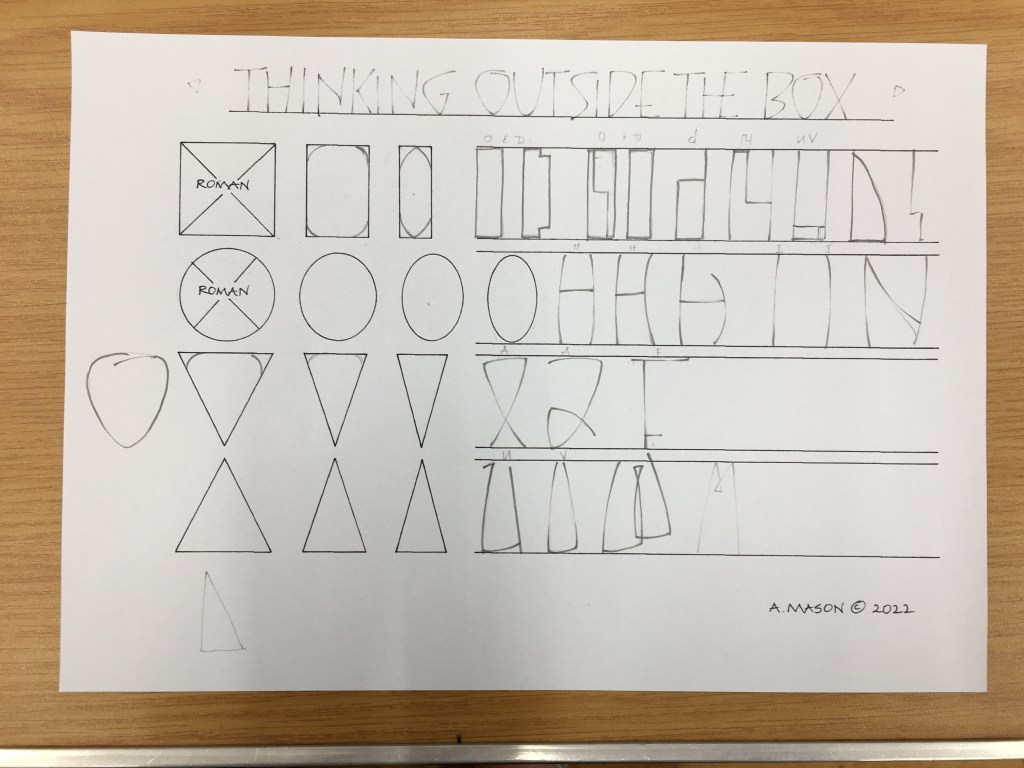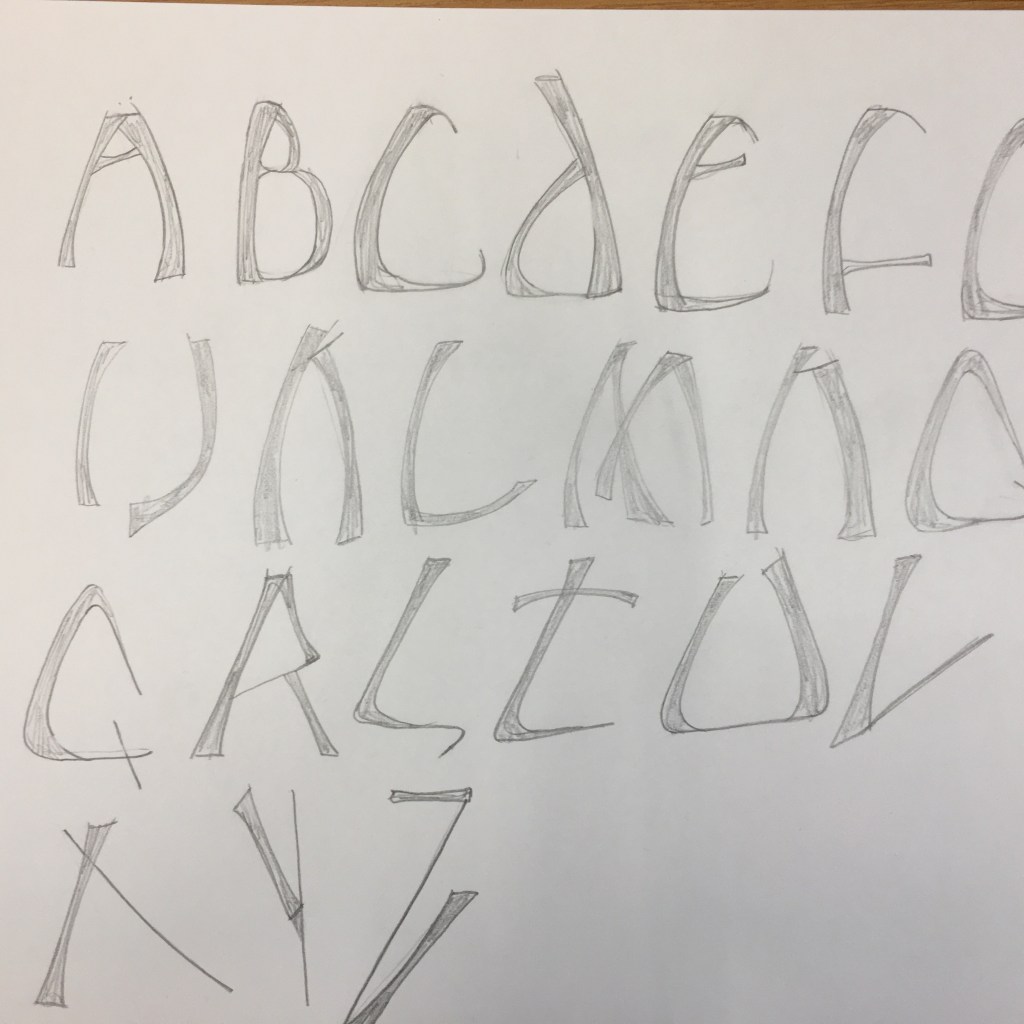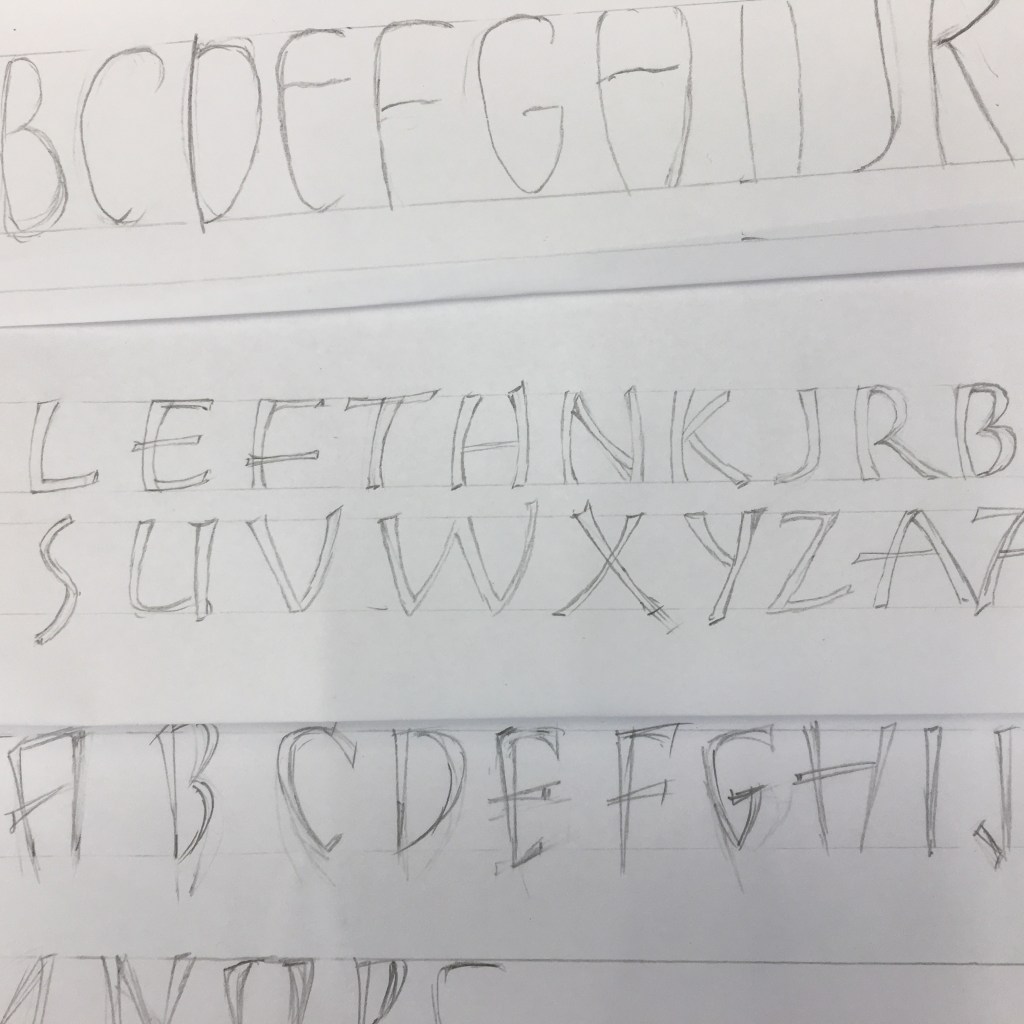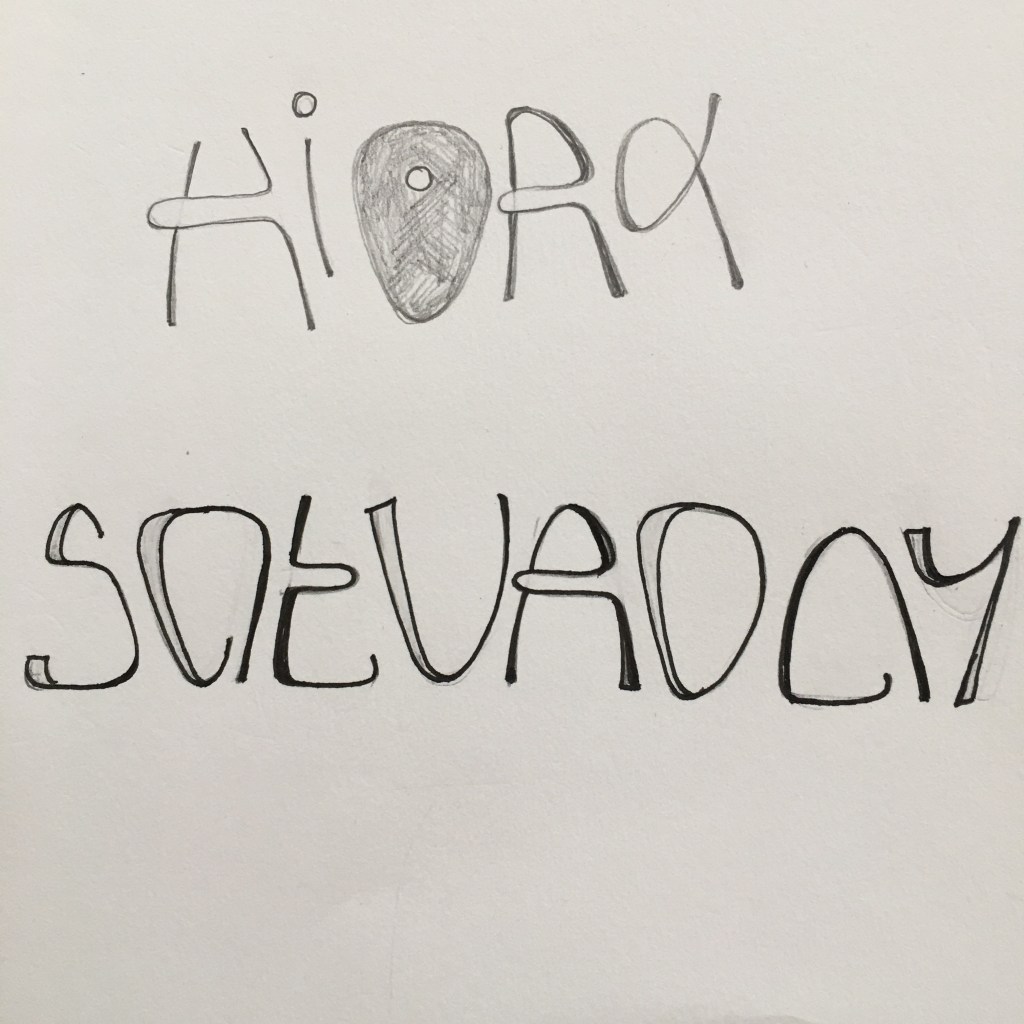
We enjoyed a challenging workshop with Ann Mason who led us through steps towards designing our own alphabet of capitals. Starting with Roman Capitals and pressure and release technique, we were soon looking at introducing asymmetry in letterforms and using rectangles ovals and triangles to build our new alphabet upon. Ann showed us a PowerPoint show of notable pieces using creative alphabets by other calligraphers.